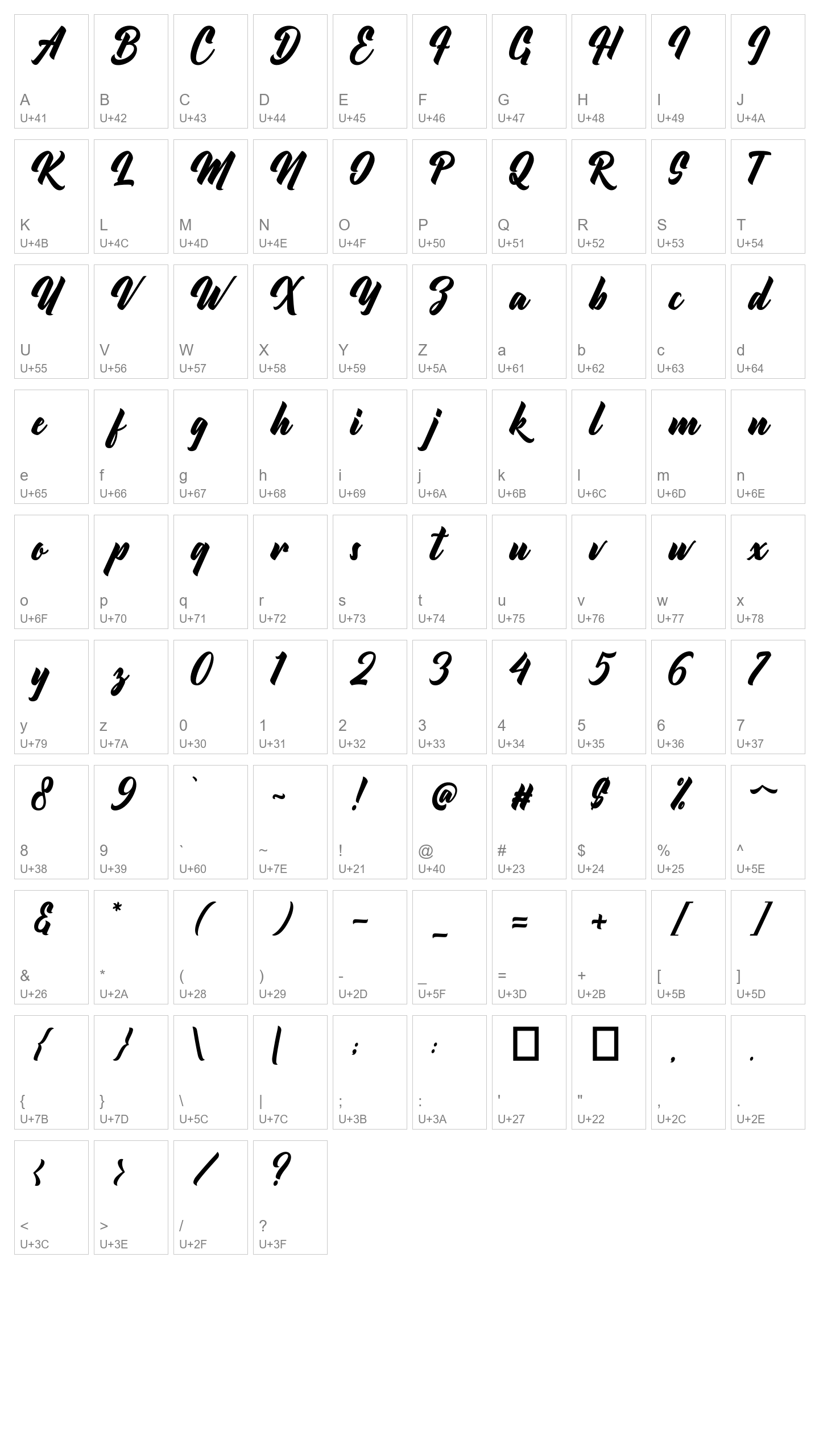
Night Gaidy
Night Gaidy is a strong and bold script font. It is curved, rounded, and has an unique vintage style, that is perfect for branding.
ItÂ’s perfect for branding projects logo, and the other various formal forms such as invitations, labels, logos, magazines, books, greeting / wedding cards, packaging, fashion, make up, stationery, novels, labels or any type of advertising purpose.